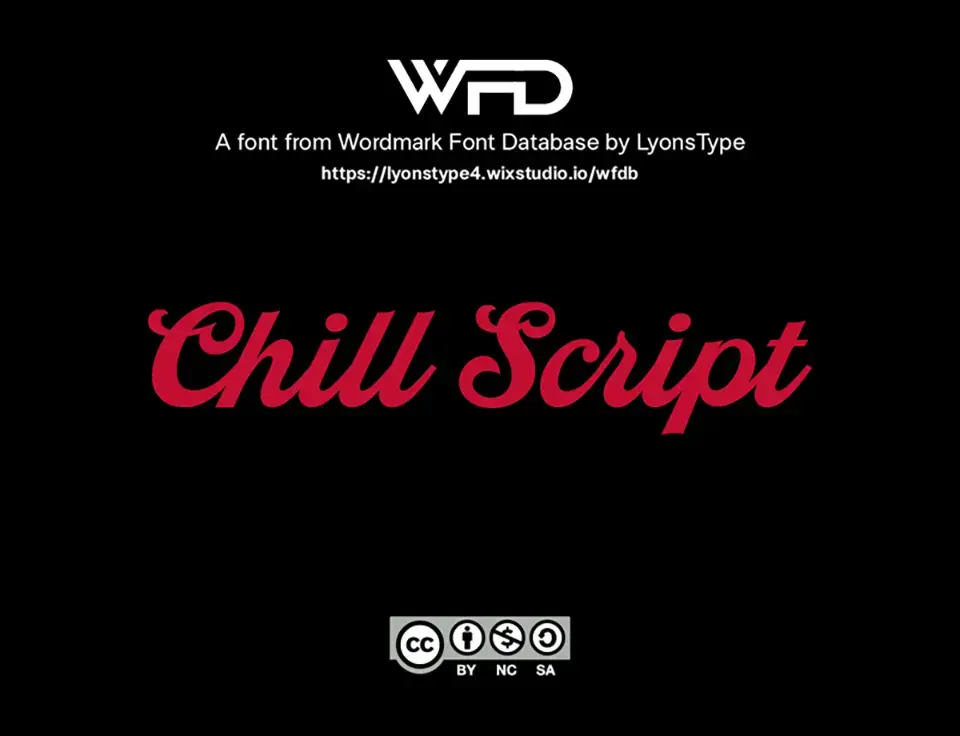
Chill Script Font
Chill Script Font channels the flowing curves of vintage beer branding into a smooth, confident script with generous loops and bold stroke contrast. Its relaxed, old-school energy makes it ideal for logos, packaging, posters, bar menus, drink labels and social media graphics where you want friendly, eye-catching lettering that still feels crafted and professional.